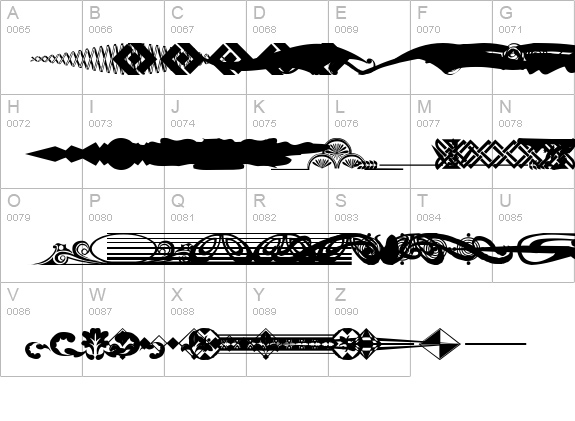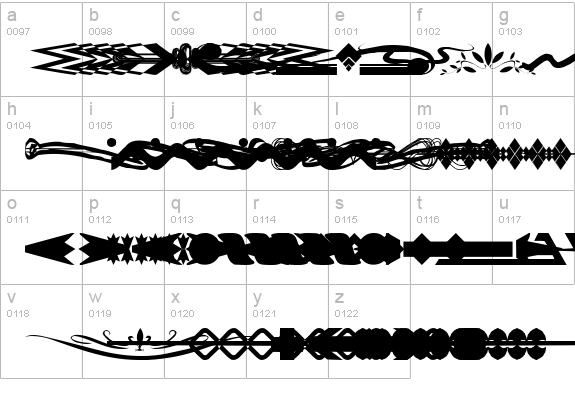
DesignerDividers Font Details
Introducing DesignerDividers font, a stunning typeface that will add a touch of elegance and sophistication to your design projects. This unique font features intricate dividers and decorative elements that will beautifully complement your text. Whether you're working on invitations, posters, or any other creative endeavor, DesignerDividers font will help you achieve a professional and polished look. The best part? DesignerDividers font is completely free to download at FontsMarket.com. Yes, you read that right - you can enhance your designs with this exquisite font without spending a dime. Take advantage of this amazing offer and elevate your projects with the beauty and charm of DesignerDividers font. Download it today and let your creativity soar!